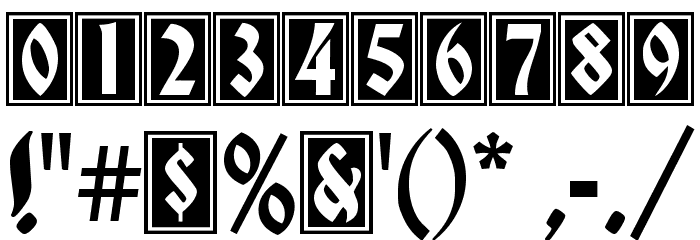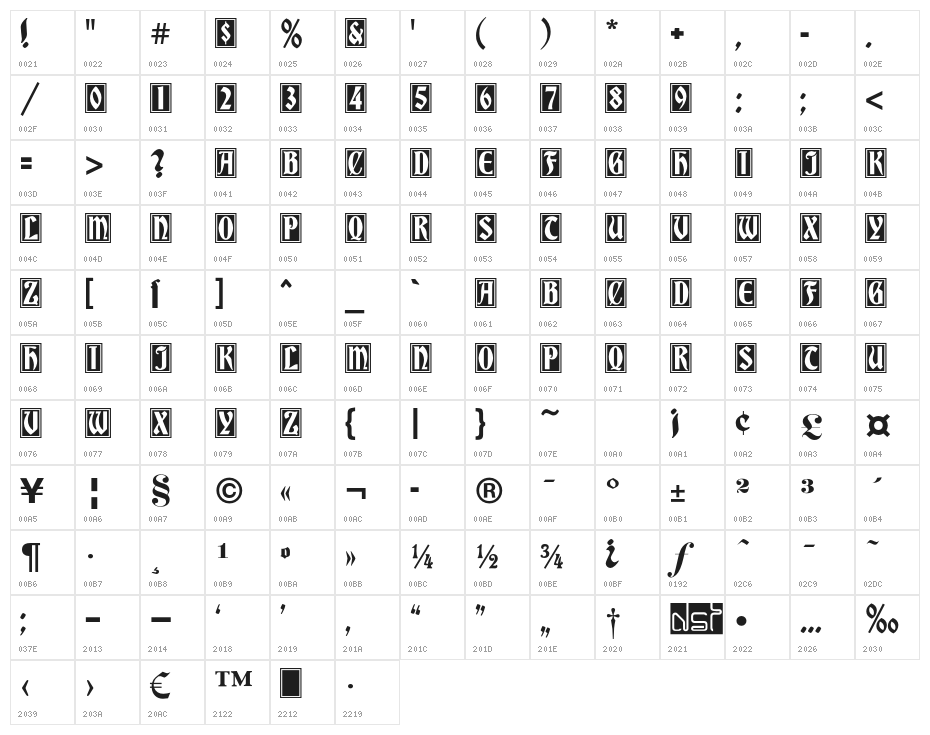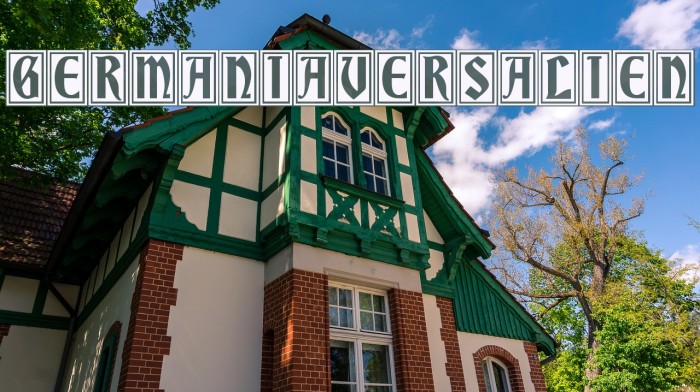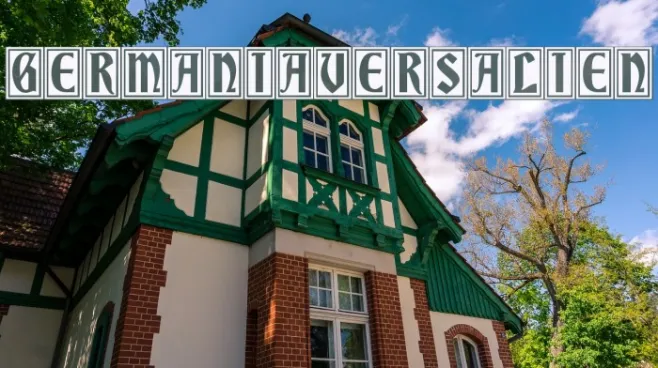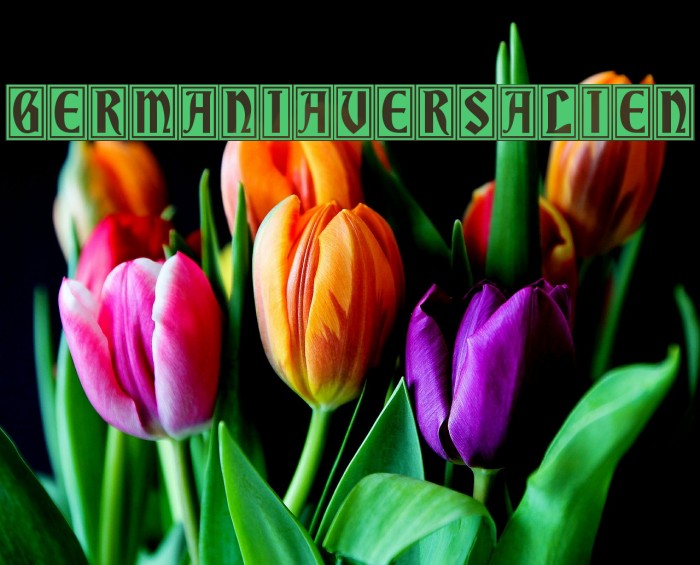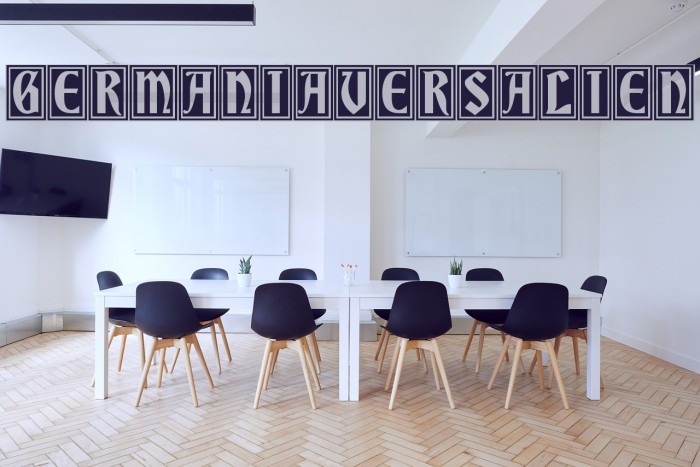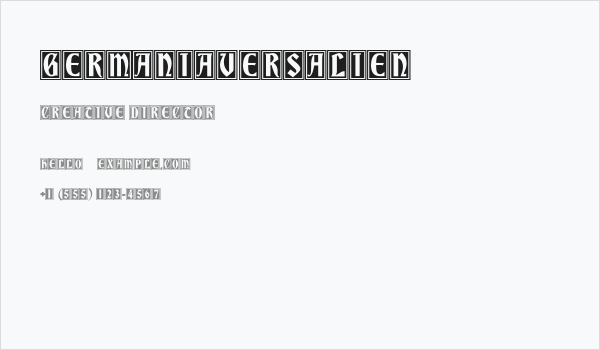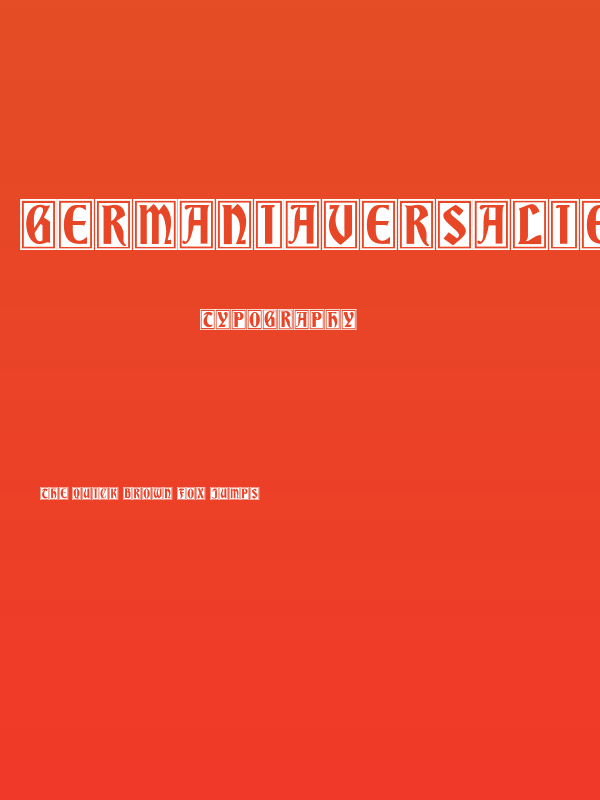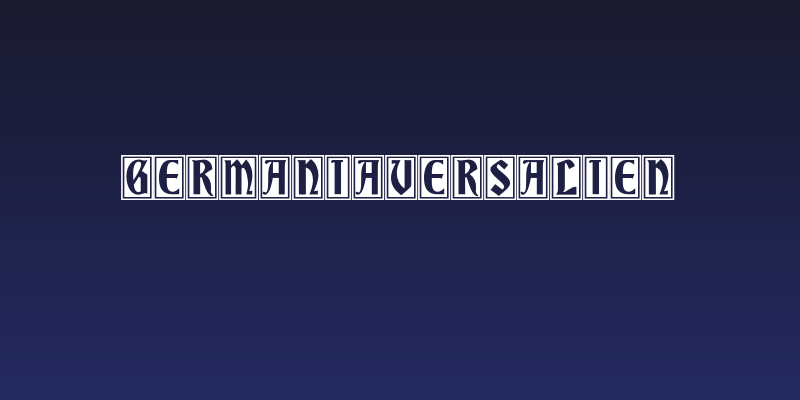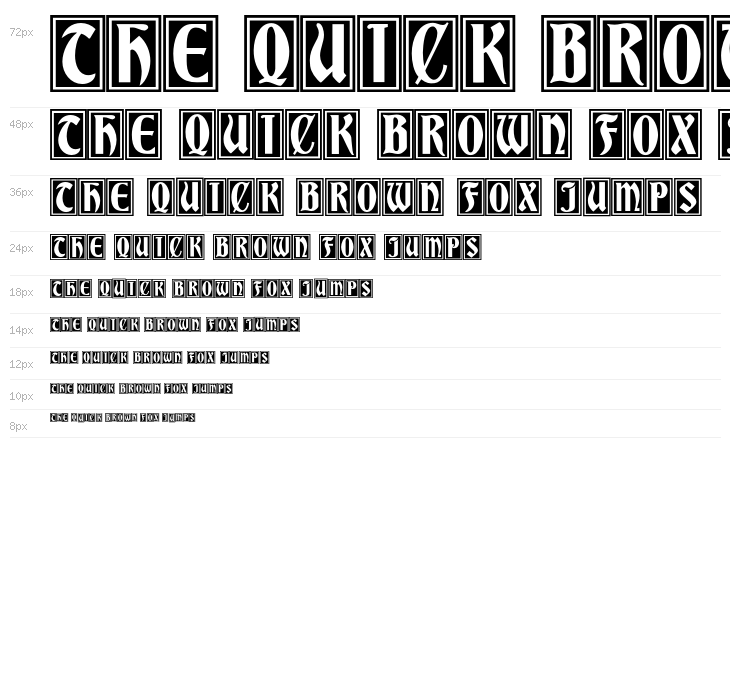
GermaniaVersalien Font
GermaniaVersalien Description
This font features a bold and striking design with a strong blackletter influence. Each character is enclosed within a rectangular border, enhancing its presence and making it ideal for attention-grabbing headlines. The uppercase letters are particularly ornate, with sharp angles and intricate details that evoke a sense of historical elegance. The lowercase letters maintain the same stylistic elements, ensuring consistency across text. Numbers and special characters are designed with the same boldness, making them stand out effectively. This font is perfect for projects that require a touch of vintage or gothic flair.
| Proposed Projects | Ideal for vintage-themed posters, gothic book covers, historical event invitations, and branding that requires a classic touch. |